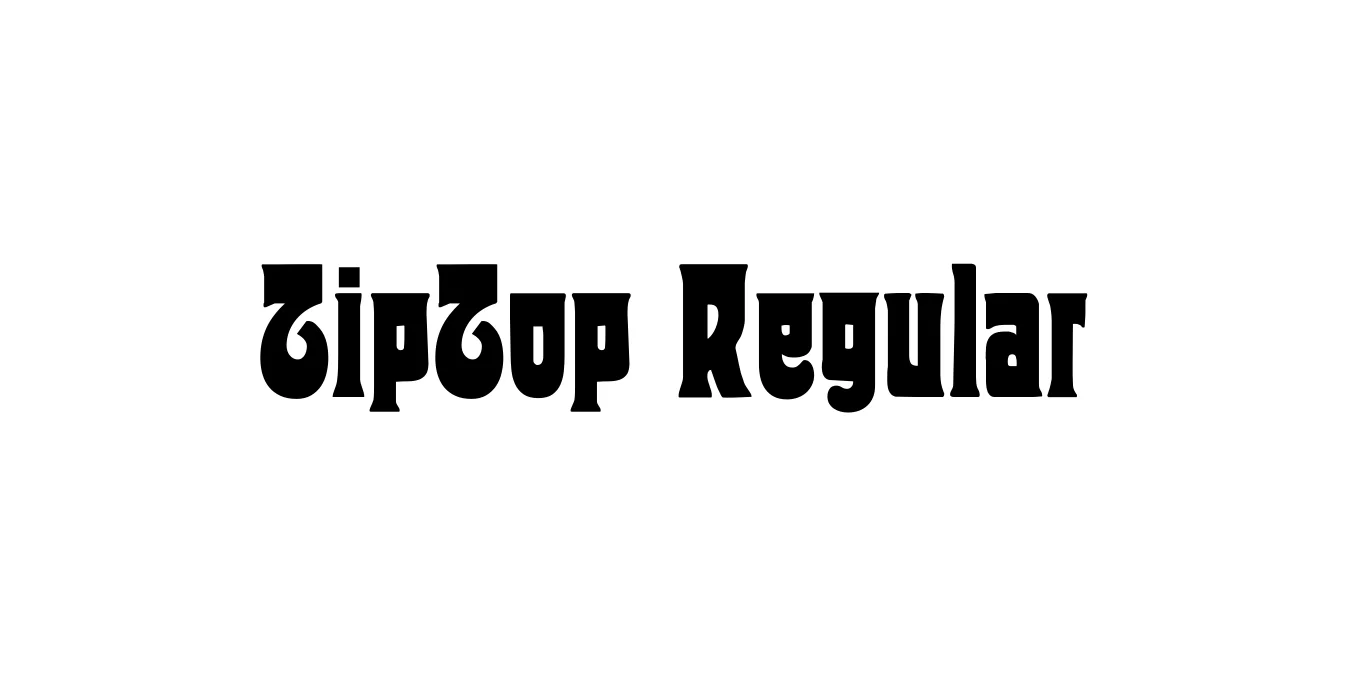
TipTop Regular
Designed by Julius de Goede
| Font Name | TipTop |
| Category | Display / Retro |
| Designer | Julius de Goede |
| Copyright | Schriftgiesserei Julius Klinkhardt, Leipzig, ca. 1900. Digitized by CybaPee, nov. 2004. |
| Similar Fonts | Bauhaus, Pump, Cooper Black, Blippo |
TipTop Regular is a distinctive and expressive typeface originally designed by Julius de Goede during the 1970s. Characterized by its bold, heavy strokes and rounded terminals, it embodies the playful yet structured aesthetic of the phototypesetting era. The font's geometric construction and unique slab-like qualities give it a commanding presence on any page, making it a classic choice for designers looking to evoke a sense of retro-modernism.
The font is particularly noted for its high-impact legibility in display sizes and its ability to bridge the gap between decorative art and functional typography. Because of its chunky letterforms and consistent line weight, TipTop Regular remains a favorite for vintage-inspired branding, bold editorial headlines, and experimental graphic design projects that require a touch of nostalgia combined with authoritative weight.
TipTop Regular Best Uses
Perfect for high-impact, large-scale vintage event posters.
Ideal for logos that need a heavy, retro-inspired personality.
Excellent for punchy, eye-catching titles in magazines and web layouts.